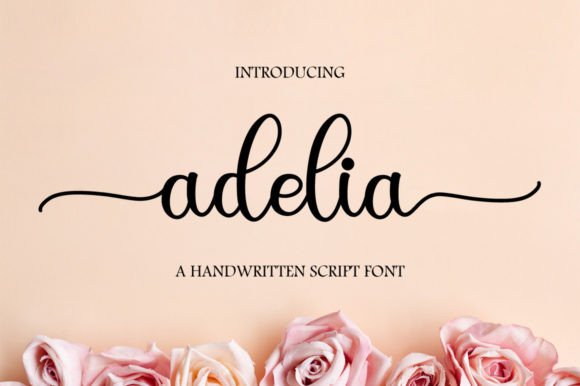
The Adelia Font: A Timeless Beauty for Your Creative Projects
I’ll never forget the moment I stumbled upon the Adelia font. I was working on a branding project for a client who wanted a logo that exuded elegance and sophistication. As I scrolled through my font library, I found myself stuck. That’s when I remembered a fellow designer raving about Adelia. I gave it a try, and it instantly became the perfect fit. The curves, the flow, and the personality of Adelia won my heart, and I’m sure it will do the same for you.
An Honest Review of Adelia Font
What I Love About Adelia ✨
- Adelia is a handwritten font that feels both modern and timeless.
- Its PUA-encoded feature makes it easy to access all the glyphs and swashes.
- Perfect for creating eye-catching logos, branding materials, and quotes.
- The font is versatile and works well for both digital and print projects.
- Adelia’s beautiful swashes add a touch of elegance to any design.
- Some users might find the font a bit overwhelming due to its numerous swashes and glyphs.
- ⚠️ Compatibility issues might arise with certain software or platforms that don’t support OpenType features.
The Story Behind Adelia Font
Adelia was designed with love and care by a talented type designer who aimed to create a font that would bring a touch of elegance and sophistication to any project. The font’s timeless feel and versatility have made it a favorite among designers and crafters.
Q: What is PUA encoding, and how does it benefit Adelia font?
PUA (Private Use Area) encoding allows for easy access to a font’s unique characters, such as swashes and glyphs. In Adelia’s case, PUA encoding makes it simple to use the font’s beautiful features.
Q: Is Adelia suitable for body text?
While Adelia is a beautiful font, it’s best suited for headings, titles, and short text due to its script nature. For body text, consider a more legible font.